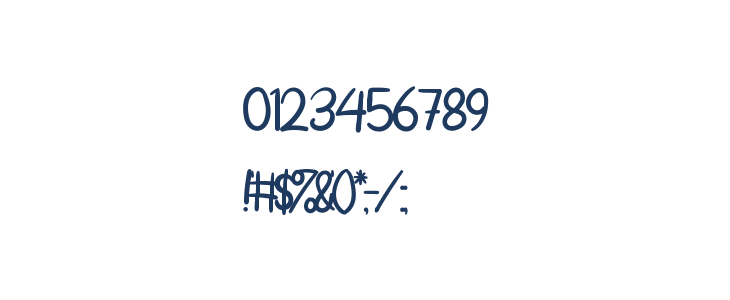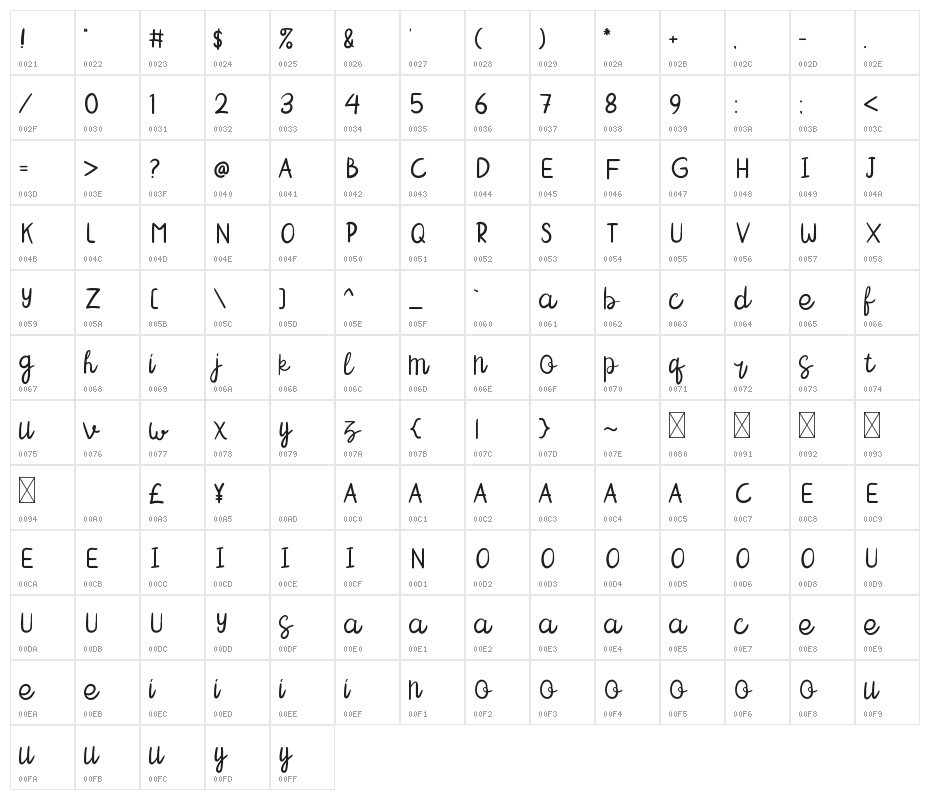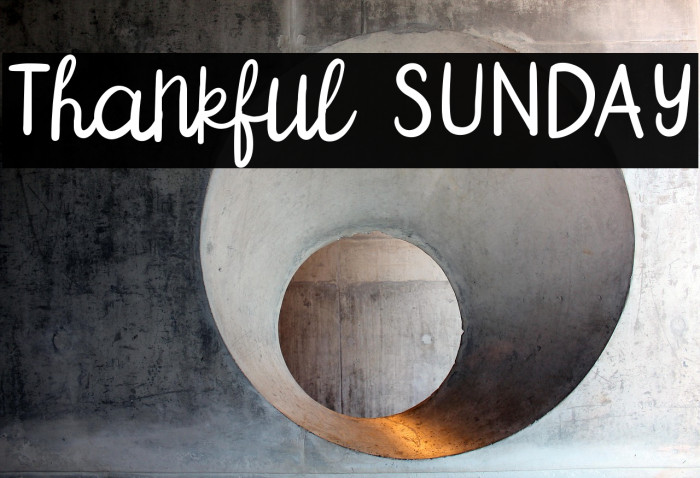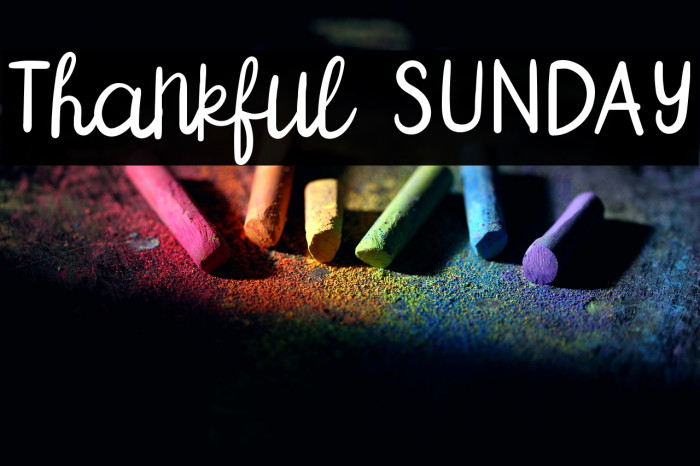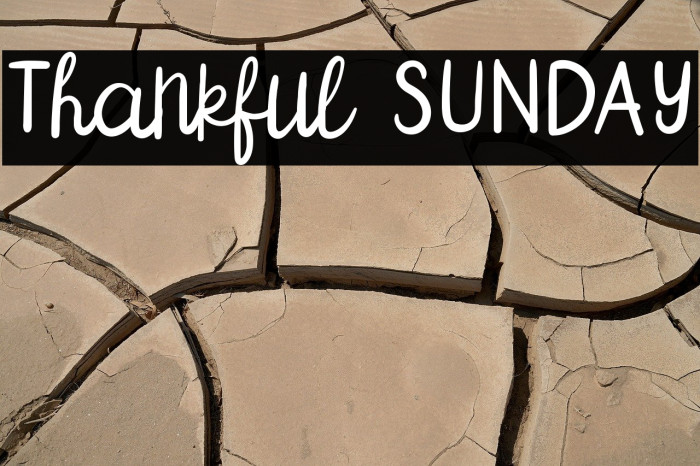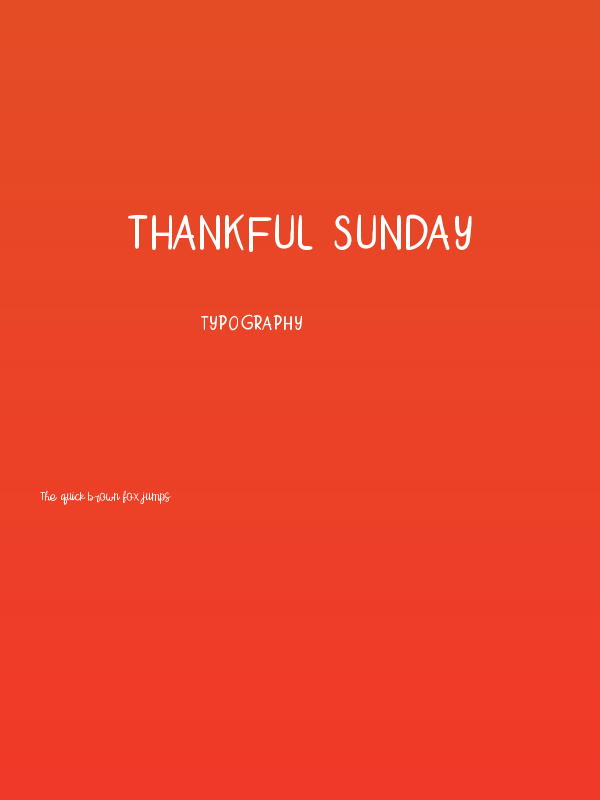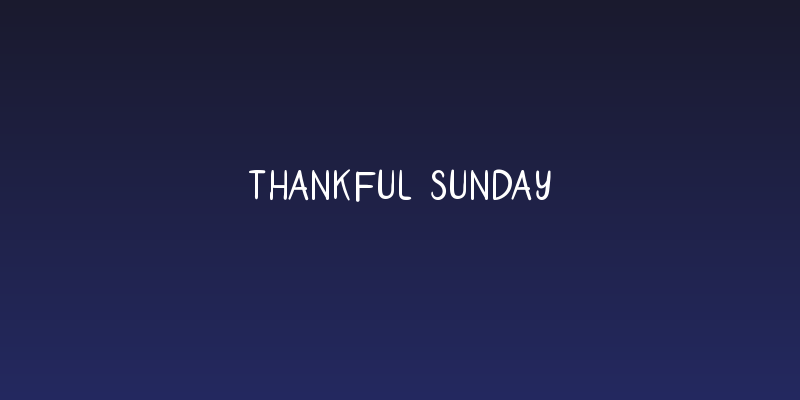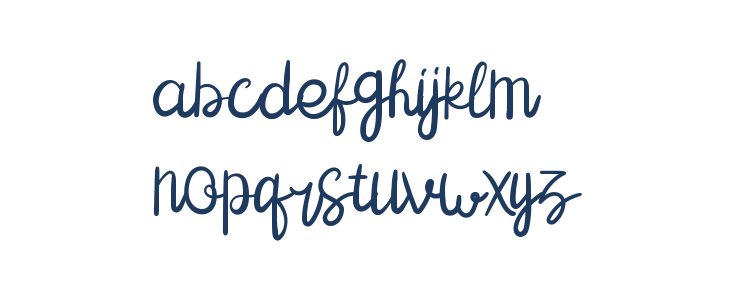
Thankful SUNDAY Font
Thankful SUNDAY Description
This font features a playful and casual handwritten style, characterized by its smooth curves and slightly irregular strokes. The uppercase letters are bold and rounded, giving a friendly and approachable feel. The lowercase letters maintain a consistent flow, with some letters like 'g' and 'y' having distinctive loops that add to the font's charm. Numbers are clear and easy to read, matching the overall style of the letters. Special characters are creatively designed, fitting seamlessly with the rest of the font. This font is versatile, suitable for projects that require a personal touch or a relaxed vibe.
| Proposed Projects | Ideal for greeting cards, invitations, personal branding, and social media graphics. |